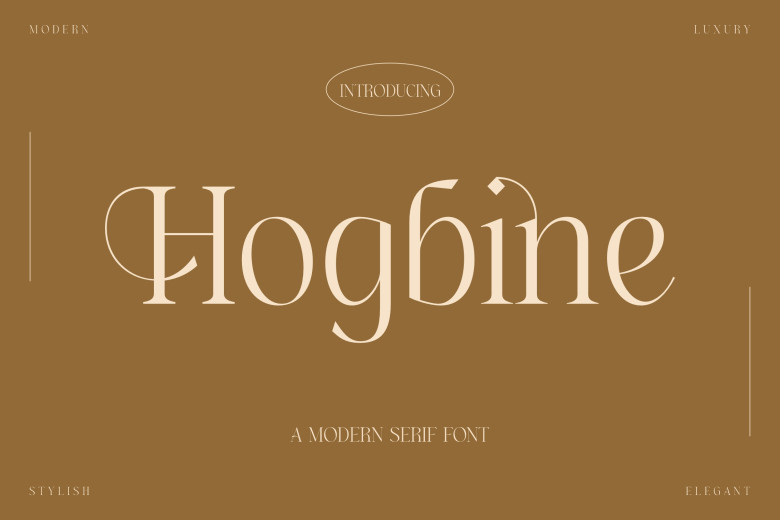
Hogbine Font
Hogbine features an eye-catching classic Serif font with its own distinct style and look, perfect for creating luxurious logos, fashion brands, clothing lines, magazine titles or book titles. This typeface can also be used in magazine titles.
Hogbine Serif Font